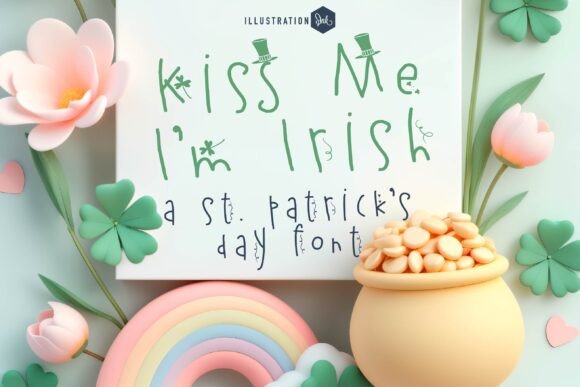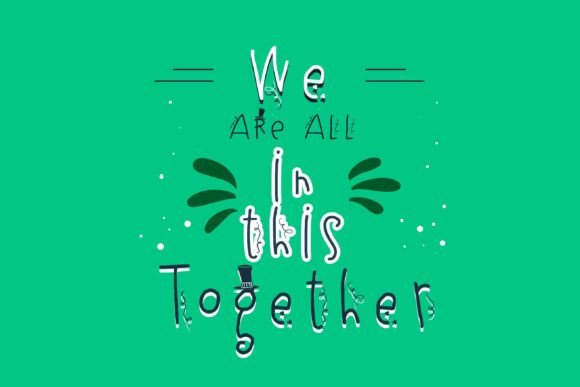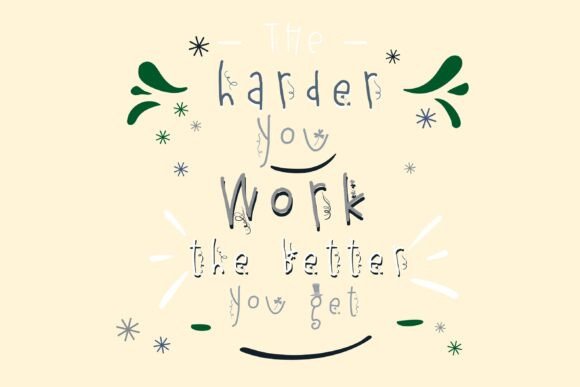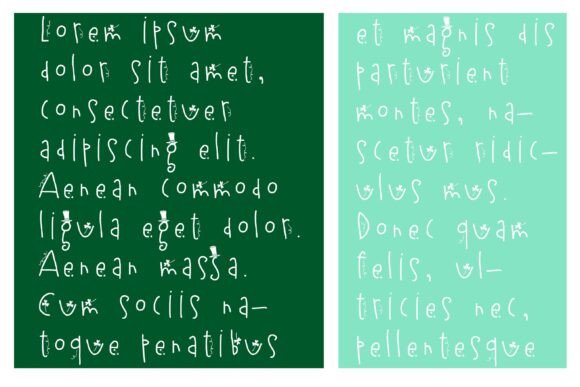
Kiss Me I’m Irish Font
About the Kiss Me I’m Irish Font
Introducing the Kiss Me I’m Irish Font, a beautifully crafted typeface designed to elevate your creative projects. This hand-crafted font is a youthful and fun font filled with party-like clover throughout.
Kiss Me I’m Irish Font is ideally suited for headlines, short text blocks on posters or invitations, and branding elements where a playful, youthful energy is desired. Its hand-crafted charm works well for projects related to St. Patrick’s Day, Irish culture, or brands targeting a young, fun-loving demographic. Avoid using it for large bodies of text or UI elements; its informal nature and varying letterforms would hinder readability.
This font’s personality is undeniably bold and friendly. To balance its whimsicality, pair it with a clean sans-serif like Montserrat for a modern feel, or a classic serif such as Garamond for a more traditional contrast. A simple geometric sans-serif could also work well, providing a structured counterpoint to the font’s organic forms.
For a more playful approach, consider pairing with a casual script font, but ensure legibility remains a priority by using the script sparingly.